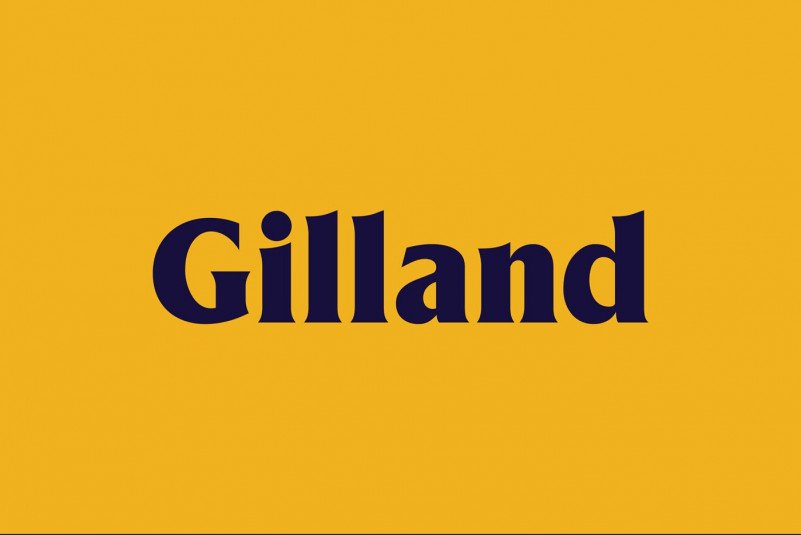
Gilland Font
A modern, quirky and decorative serif typeface. Made from font designer named Andreu Gallart Ruiviejo.  It can be classified as an Incisa (for the endings) with ancient Roman airs (for stroke modulation), but of grotesque proportions (by the height of x).
Gilland contains 480 glyphs, including symbols, diacritics, new characters, kerning pairs, small caps. This type can work for texts, headlines, logos, corporate images and more.